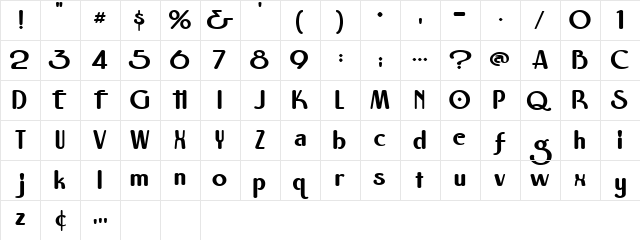
2 Nelson ShoCard Fat DNA Regular
Design Context for 2 Nelson ShoCard Fat DNA
2 Nelson ShoCard Fat DNA is a composed and adaptable typeface that performs quietly and consistently across a wide range of design contexts.